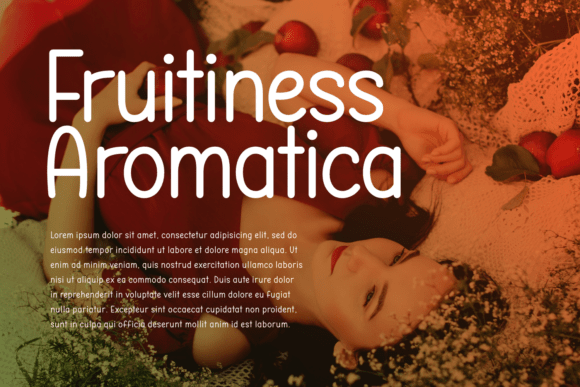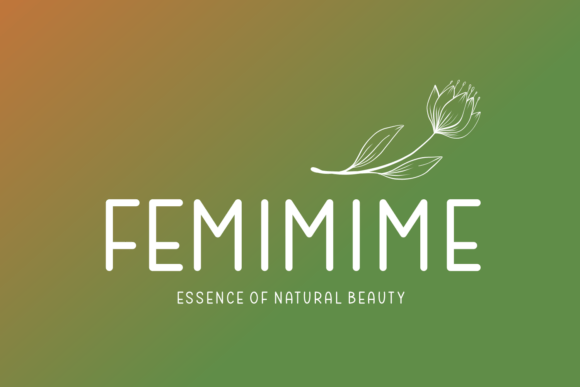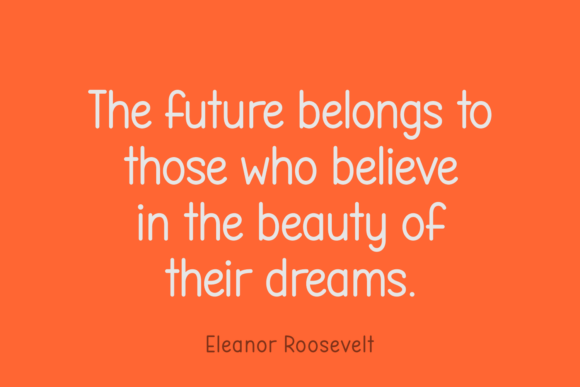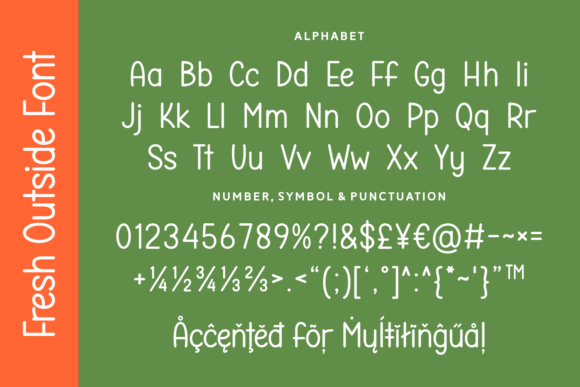
Designing for a Sunny State of Mind
Have you ever found yourself stuck on a design project, searching for the perfect font to bring your vision to life? I know I have. One moment that stands out was when I was working on a summer-themed campaign for a kids’ clothing brand. I needed a font that captured the carefree, playful spirit of the season. That’s when I stumbled upon the Fresh Outside Font, and everything fell into place.
The Fresh Outside Font is a charming sans serif font designed to evoke feelings of warmth and friendliness. Its rounded letterforms are perfect for summer-themed designs, children’s products, and social media graphics. Whether you’re a seasoned designer or just starting out, this font is a valuable addition to your toolkit. With Fresh Outside Font, you can create designs that are modern, youthful, and full of energy.
Fresh Outside Font Key Features
- Unique Characteristics: Fresh Outside Font features a modern, hand-drawn design with a natural and earthy feel, making it ideal for outdoor and nature-inspired designs.
Review of Fresh Outside Font
I’ve had the chance to work with Fresh Outside Font, and overall, I think it’s a solid addition to any designer’s toolkit. ✨ The font’s unique blend of modern and natural elements gives it a fresh, outdoorsy feel that’s perfect for projects that need a little extra oomph. ✨ The font’s high x-height and wide letterforms make it easy to read, even at smaller sizes.
One of the things I love about Fresh Outside Font is its versatility. ✨ It works well for a wide range of projects, from branding and logos to signage and wayfinding. ✨ It’s also a great choice for designers who want to create a sense of connection to the natural world.
- ⚠️ Limited language support: Fresh Outside Font only includes a limited range of languages, which may be a problem for designers working on projects that require a wider range of languages.
- ⚠️ Not ideal for small text: While the font is easy to read at larger sizes, it can be difficult to read at smaller sizes, which may be a problem for designers who need to use the font in situations where small text is necessary.
Overall, I think Fresh Outside Font is a great choice for designers who want to add a touch of natural elegance to their projects. While it may have some limitations, it’s a solid addition to any designer’s toolkit.
Tips for Getting the Most Out of Fresh Outside Font
Use the Fresh Outside Font for headings and titles to add a touch of modernity to your designs.
Pair the font with bold colors and clean lines for a cohesive look.
Experiment with different font sizes and styles to create visual interest.
Use the Fresh Outside Font for:
Branding and logo design
Marketing materials and advertising